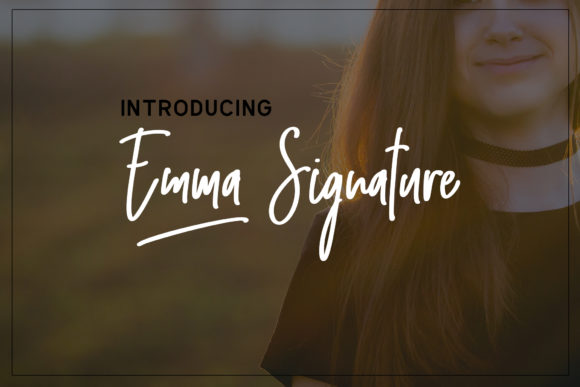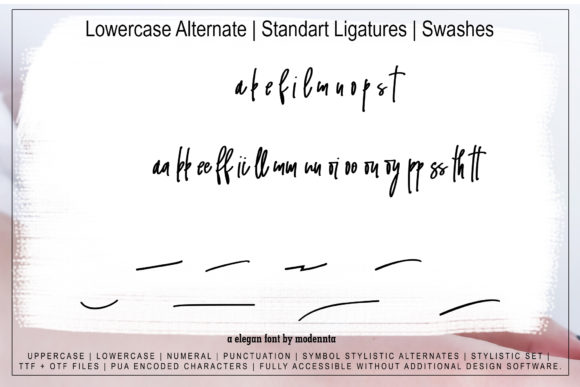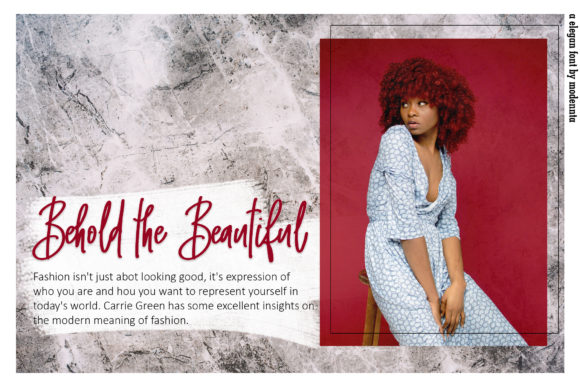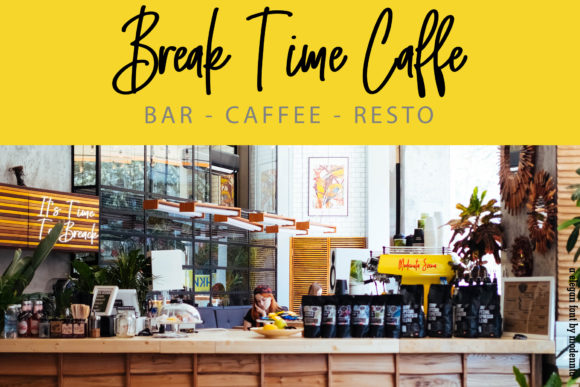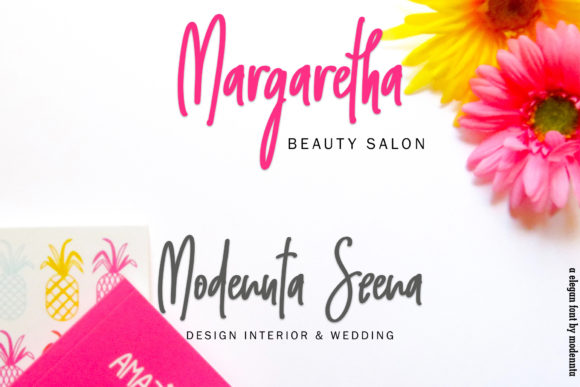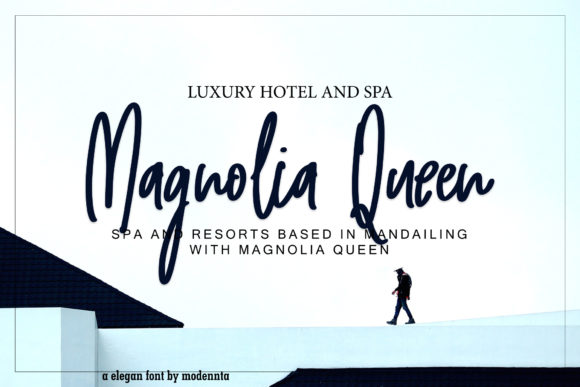
Emma Signature Font
About Emma Signature Font
Emma is a beautiful and modernistic script font, full of life. It will turn any design project into a true standout!